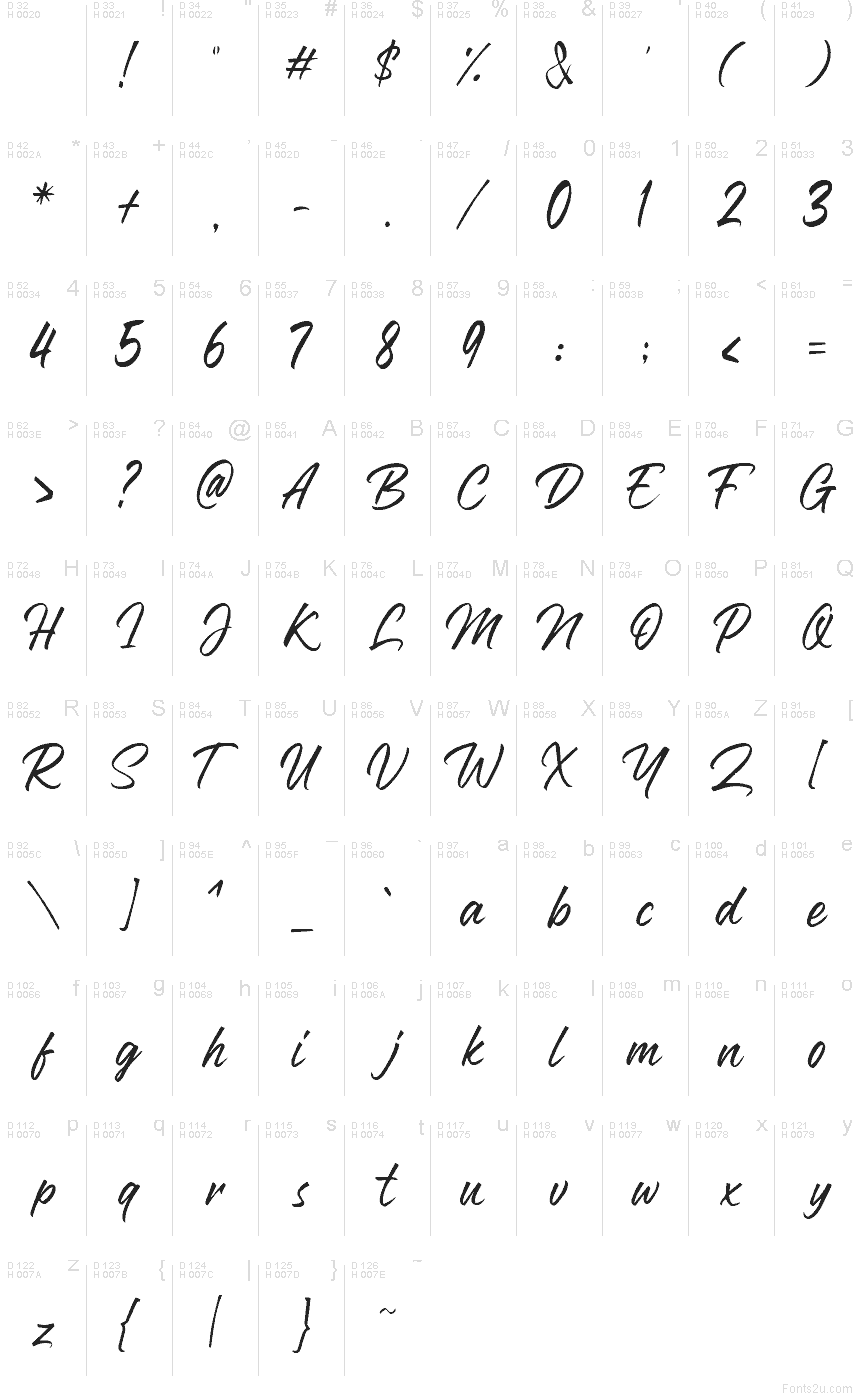
Madame Confidentielle
Madame Confidentielle font by BlackFridayFont FMF is a free handwritten script typeface that feels like an ink pen gliding across smooth paper. Its letters connect with an easy, confident slant, giving every word a sense of hush-hush elegance—like a note passed across a candlelit table. The strokes are fluid yet controlled, so it looks refined rather than messy, with a gentle rhythm that keeps long words readable and graceful.
Using Madame Confidentielle, you can add sophisticated personality to wedding invitations, perfume or beauty branding, thank-you cards, boutique logos, social media quotes, and digital signatures. This free font shines when used large enough to show off its loops and curves; pair it with a clean sans serif for body text to keep layouts airy and modern.